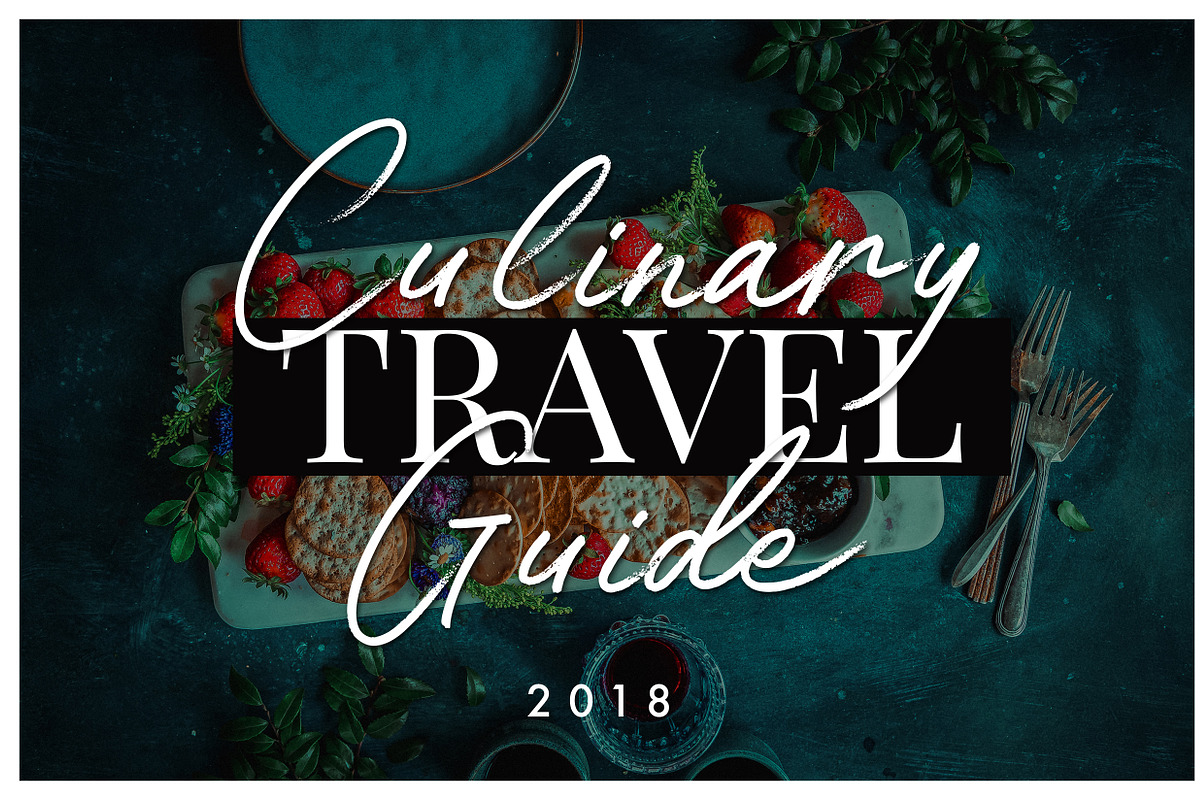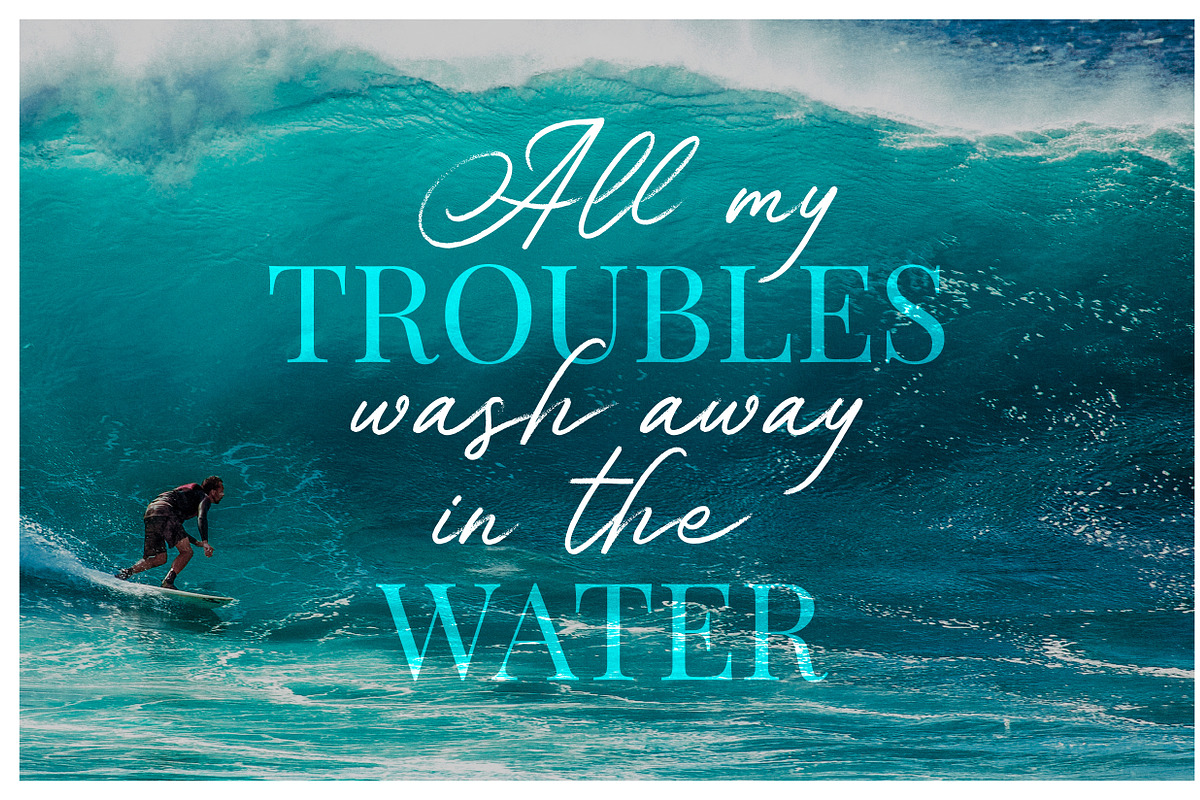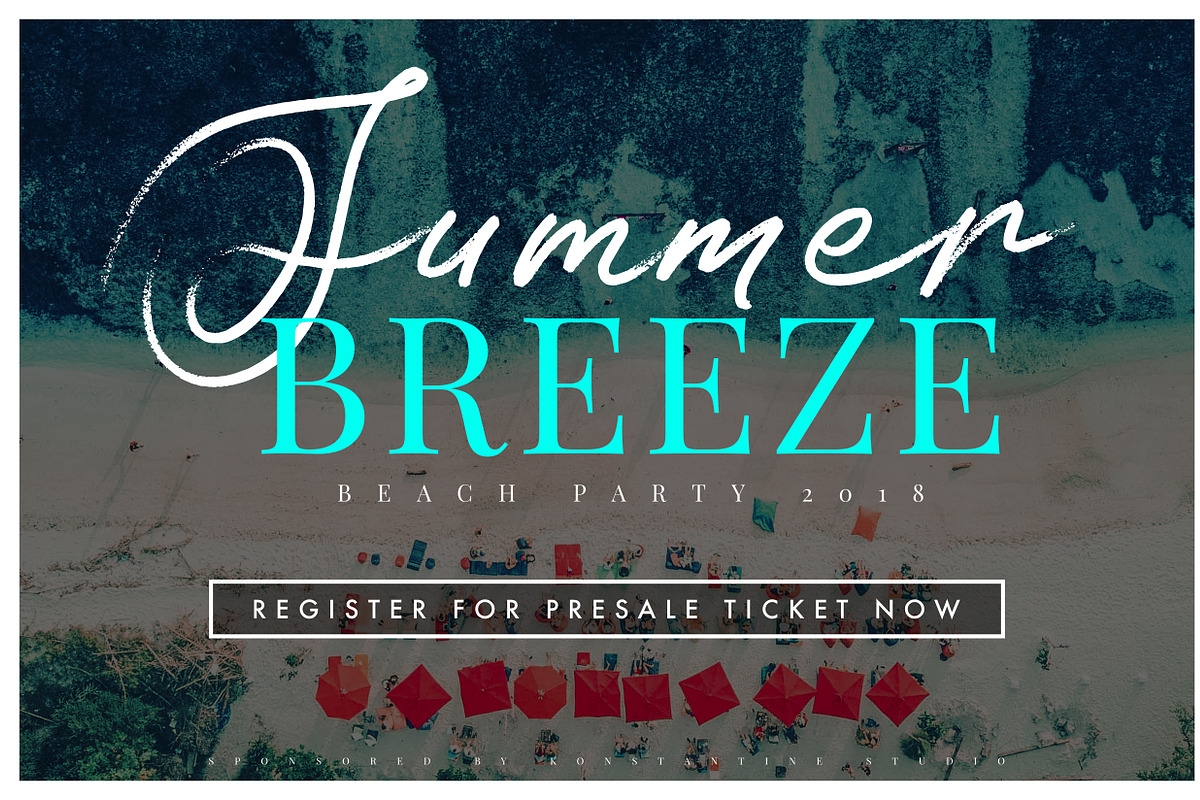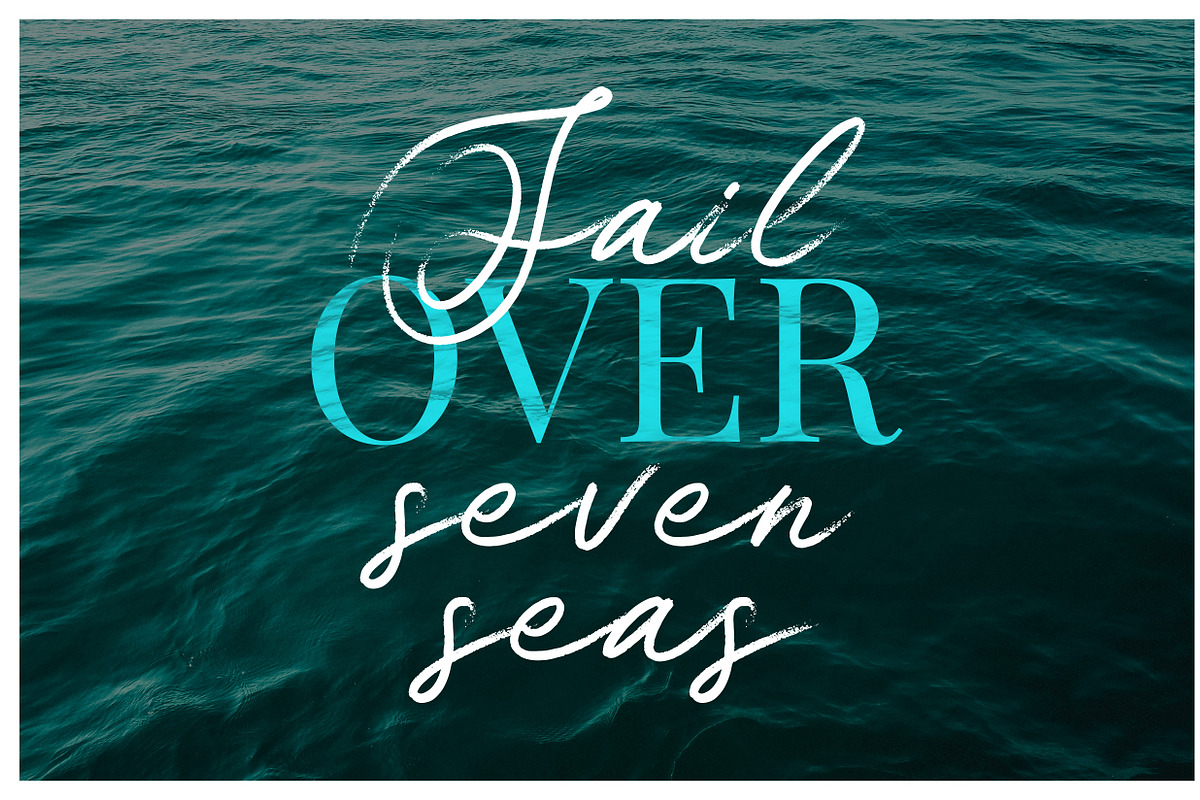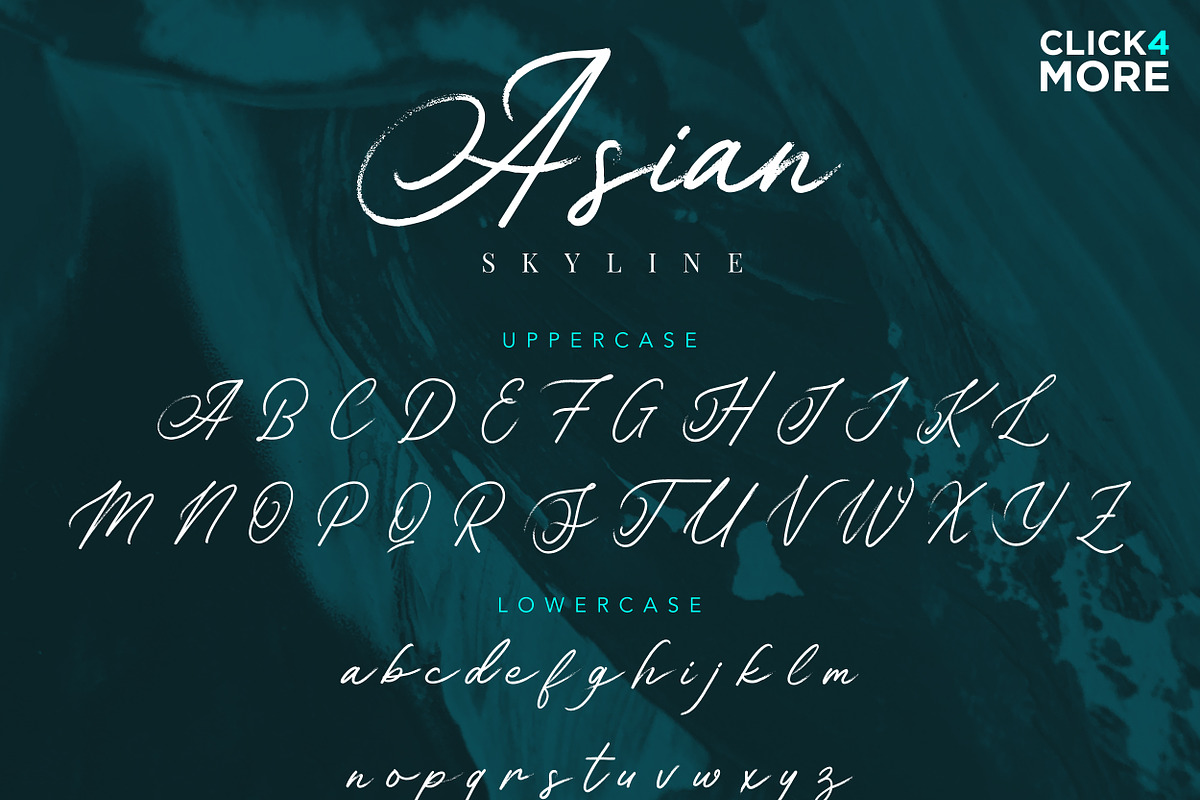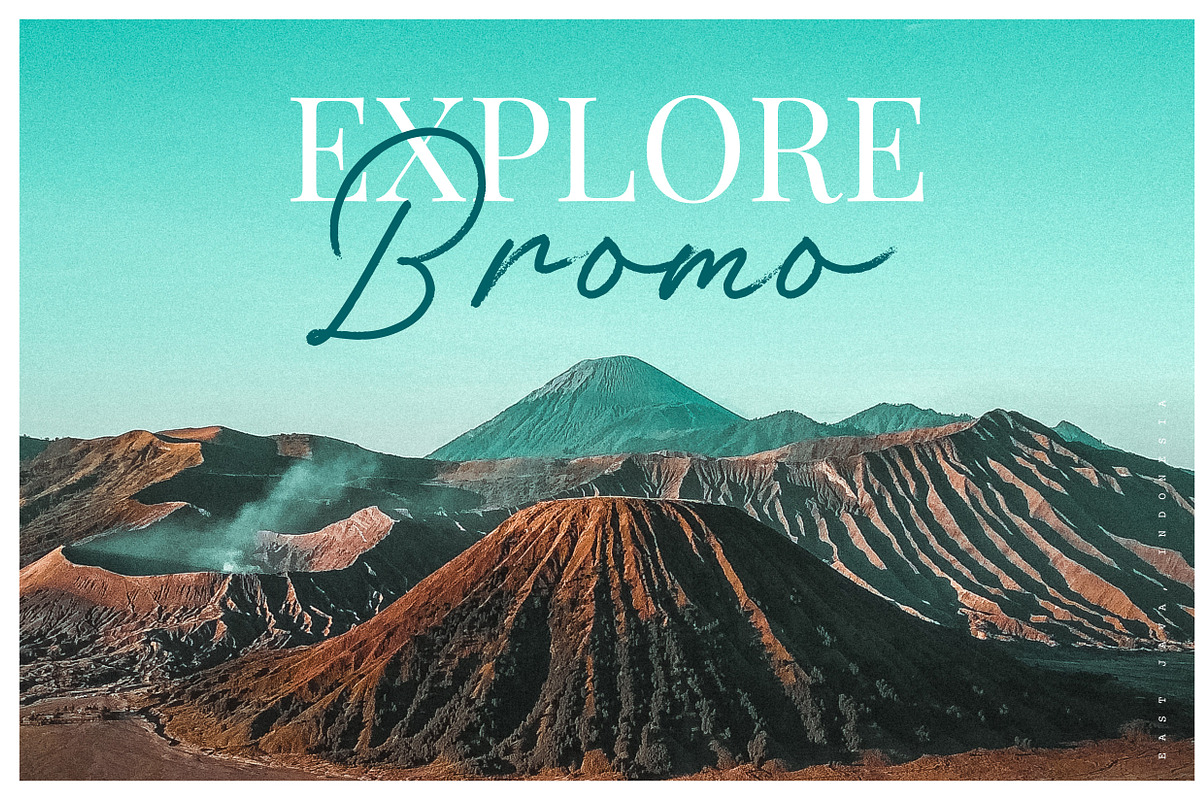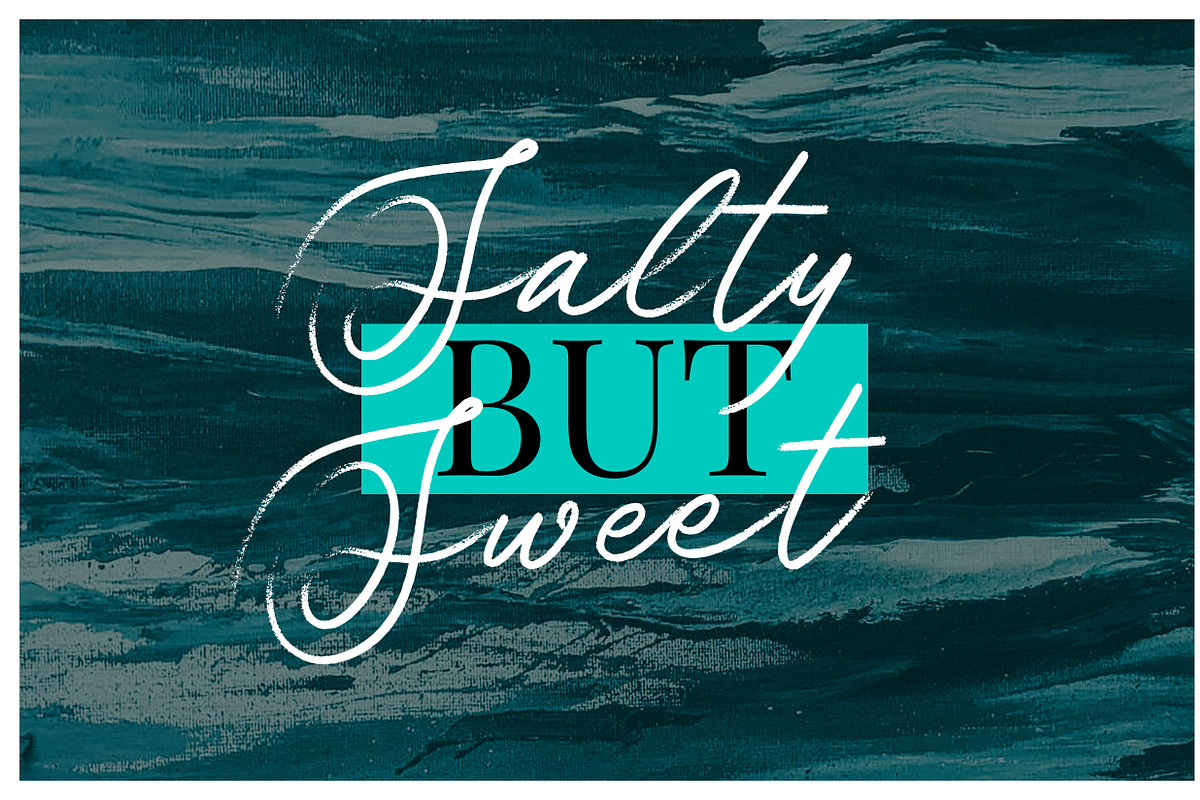
Asian Skyline - Casual Summer Font
Inspired from the airplane trace line in the bright blue sky, which are something rare nowadays, cause its winter. So why don't we just make our summer right now? and that's where Asian Skyline came from. A fast stroke casual brush script font with the fade-out effect in every end of letters, to interpret those airplane trace lines just like what i said above. Perfectly fit for your casual branding stuff, logo, traveling things, holiday promo, summer vibes concept, etc. Lets just have fun like we always did in every summer!
Included Uppercase, Lowercase, Numbers & Punctuations, Multilanguage Support, And ligatures for common double-letters to seamlessly make it looks like handwritten.
Summer comes earlier! :)